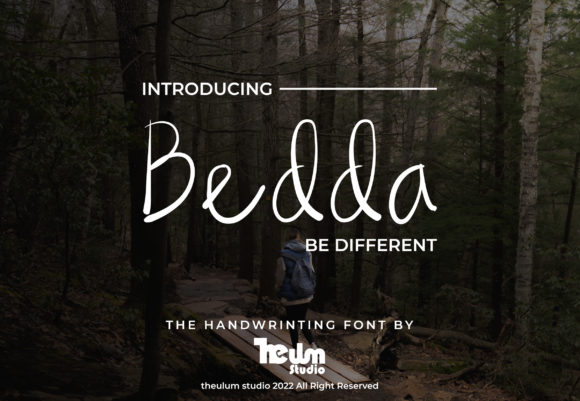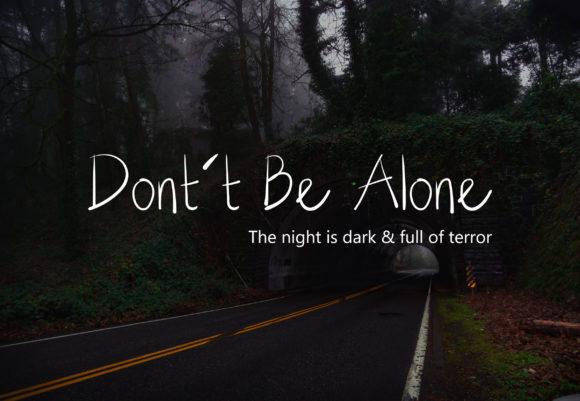
About Bedda Font
“Bedda” is introduced as a sweet and friendly handwritten font with a natural and unique style. Positioned as a versatile typeface, it is suggested that this font is incredibly fitting for a large pool of designs, with the only limit being your imagination.
The terms “sweet and friendly” suggest that “Bedda” carries a warm and approachable vibe, making it suitable for projects where a friendly and inviting aesthetic is desired.
The mention of a “natural and unique style” implies that the font captures an authentic and individualized feel, contributing to its versatility and adaptability across different design contexts.
The statement “incredibly fitting to a large pool of designs” emphasizes the font’s versatility, suggesting that it can seamlessly integrate into a wide variety of creative projects.
The encouragement that “the only limit is your imagination” underscores the idea that “Bedda” is a font that provides creative freedom. Designers are invited to explore and experiment, indicating that this font is adaptable to different styles and concepts.
In summary, “Bedda” is presented as a sweet and friendly handwritten font with a natural and unique style. Its versatility and the encouragement for creative exploration make it a font that can be applied to a broad range of designs, allowing designers to let their imagination run free.